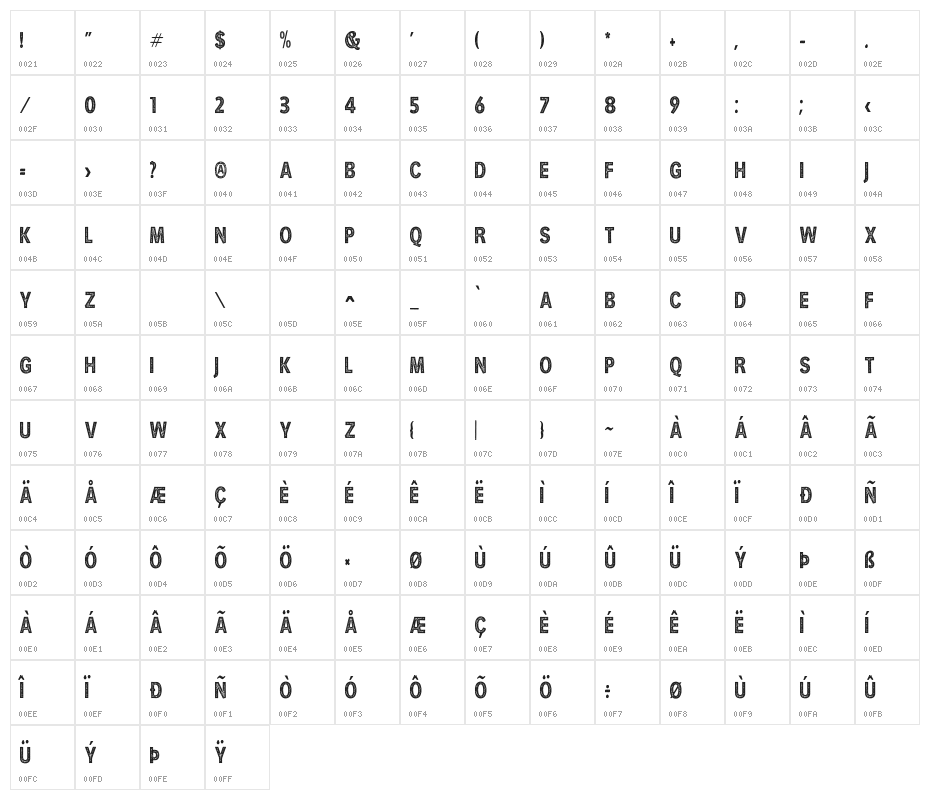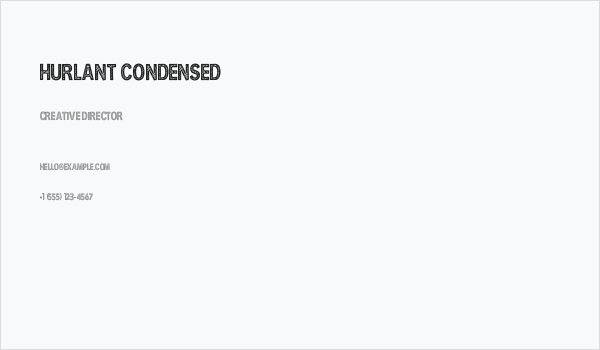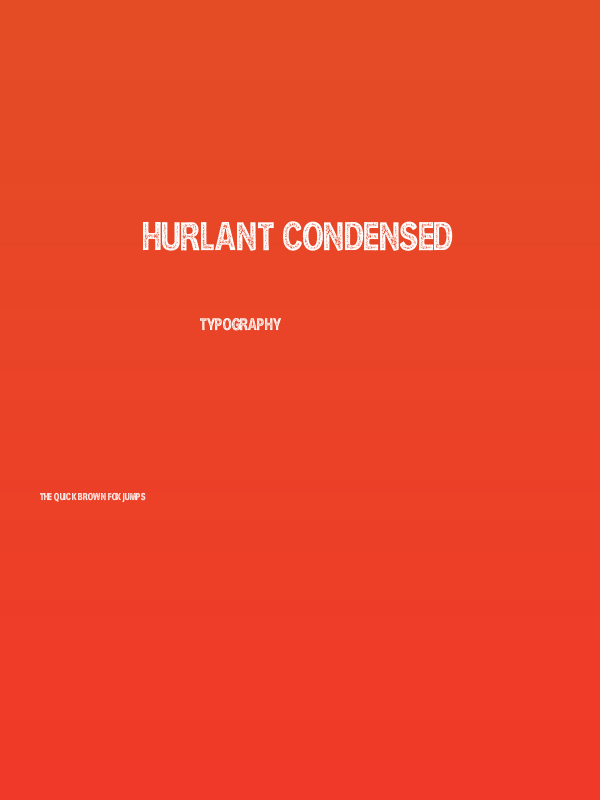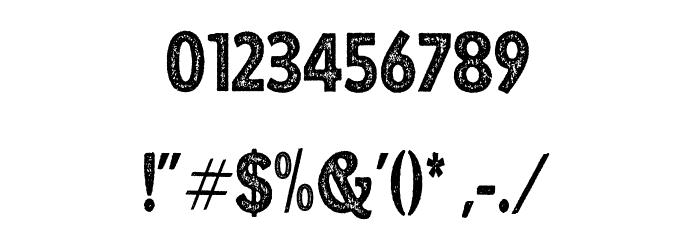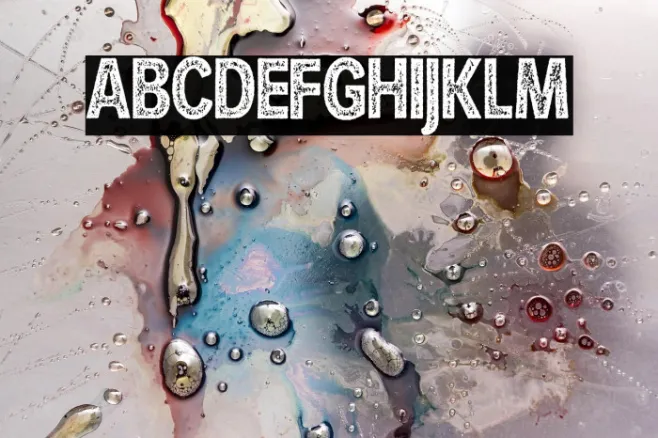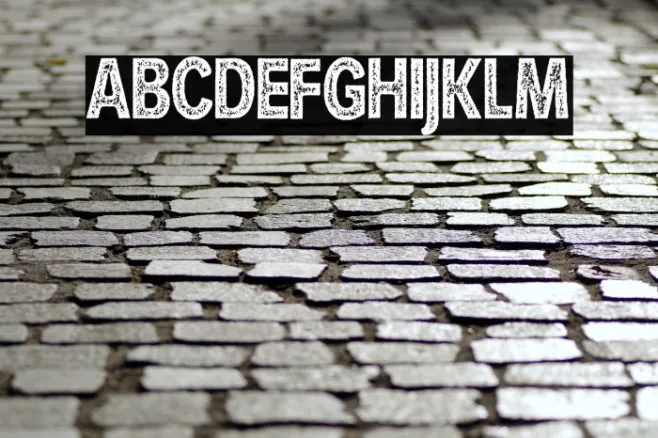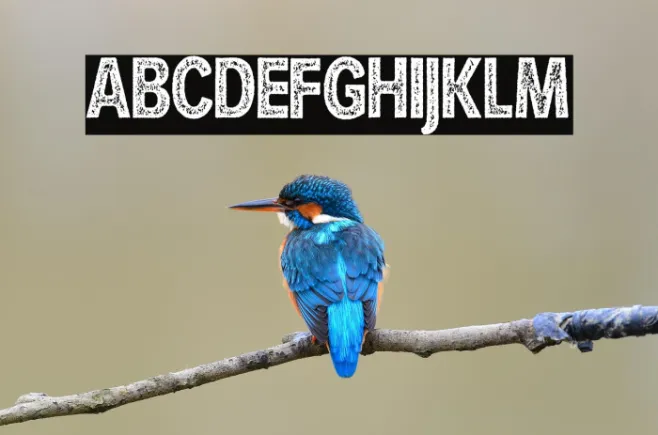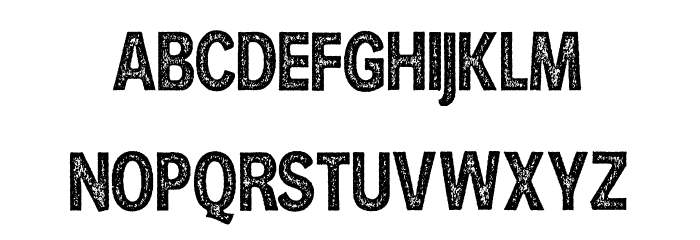
HURLANT CONDENSED Font
HURLANT CONDENSED Description
This font features a bold and condensed style with a distressed, textured appearance that gives it a rugged and vintage feel. The uppercase letters are uniform in height, while the numbers and special characters maintain the same distressed texture, adding to its cohesive look. The font's condensed nature allows for efficient use of space, making it suitable for impactful headlines and titles. Its unique texture adds character and depth, making it stand out in various design contexts.
| Proposed Projects | Ideal for poster designs, vintage-themed branding, album covers, and any project requiring a bold, eye-catching typeface. |